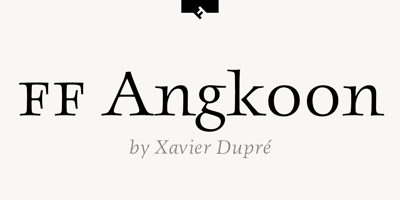
FF Angkoon Font Family was designed by Xavier Dupré and published by FontFont. FF Angkoon contains 8 styles and family package options. French type designer Xavier Dupré created this serif FontFont in 2003. The family has 8 weights, ranging from Light to Bold (including italics) and is ideally suited for advertising and packaging, festive occasions as well as editorial and publishing. FF Angkoon provides advanced typographical support with features such as ligatures, small capitals, alternate characters, and case-sensitive forms. It comes with a complete range of figure set options – oldstyle and lining figures, each in tabular and proportional widths. In 2004, FF Angkoon received the TDC2 award.